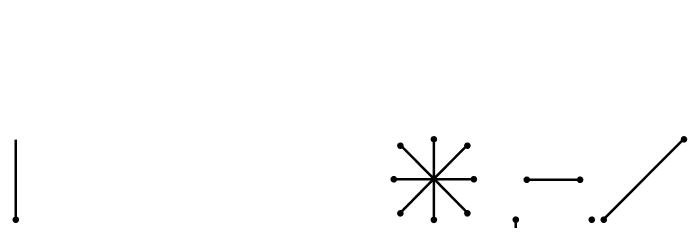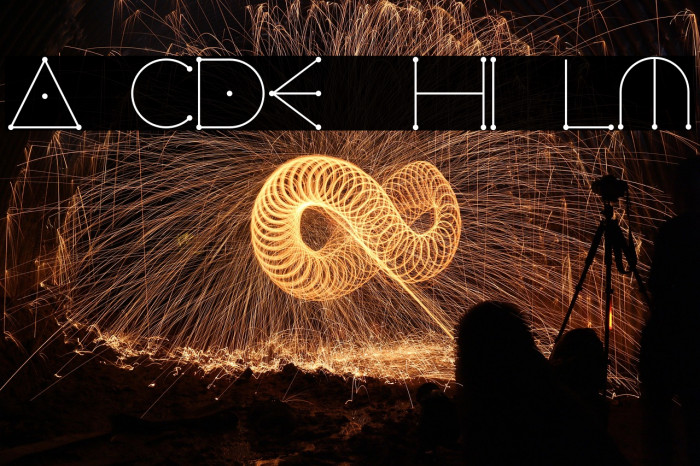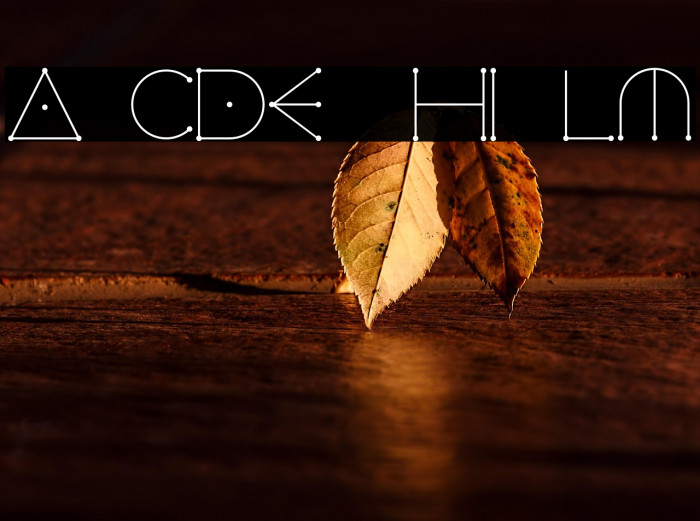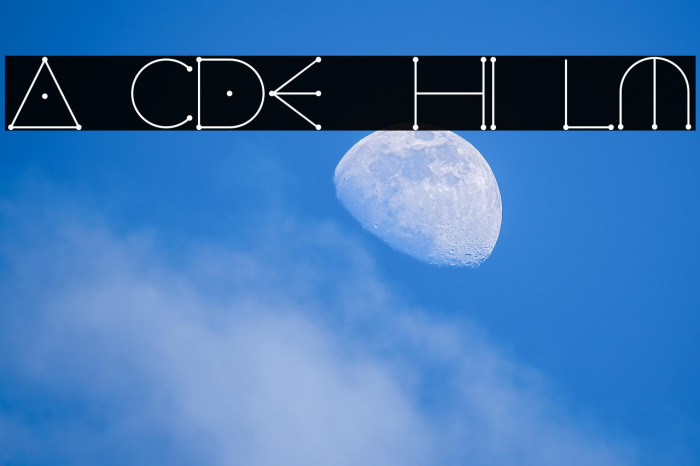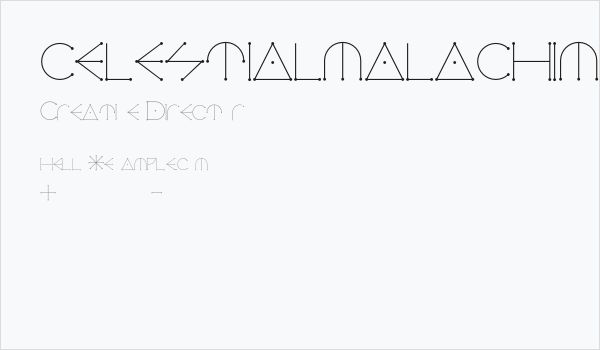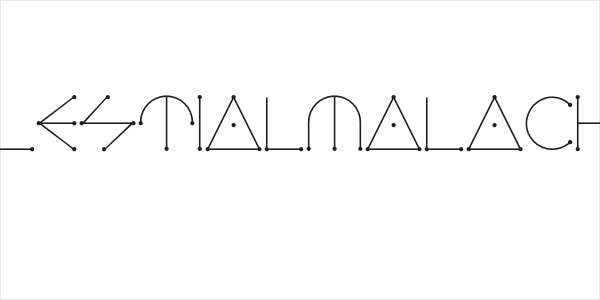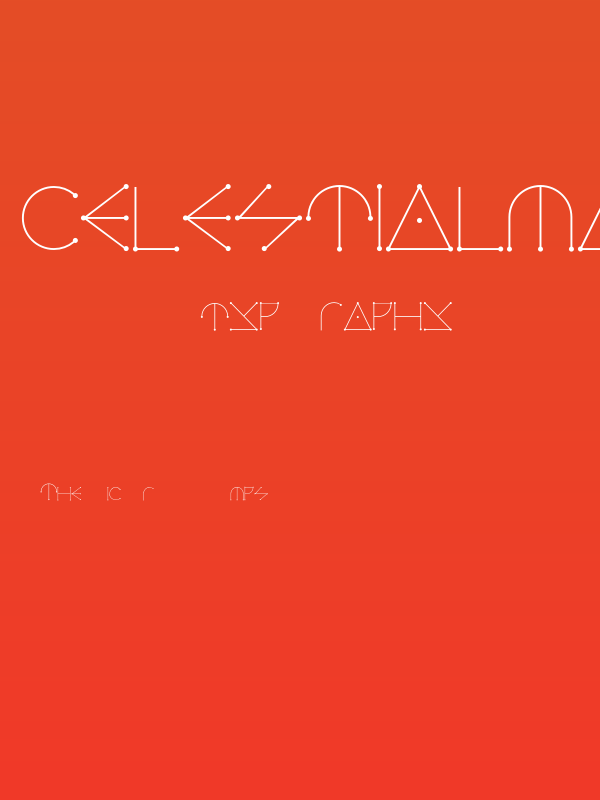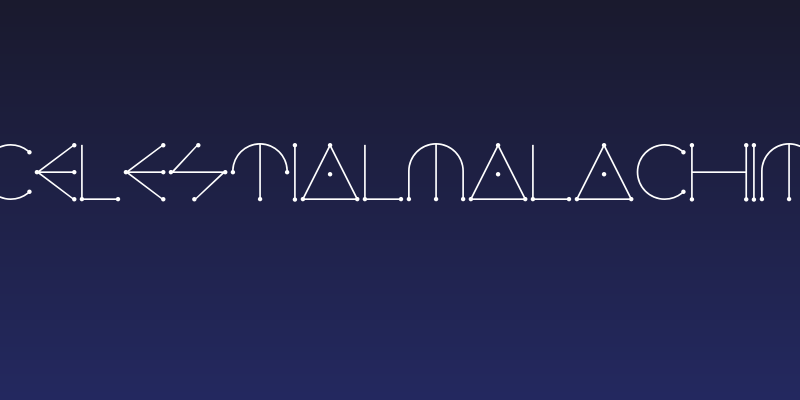
CELESTIALMALACHIM Font
CELESTIALMALACHIM Description
This font features a unique and abstract design, characterized by geometric shapes and lines that form each letter. The style is reminiscent of celestial or mystical symbols, with a minimalist approach that emphasizes simplicity and elegance. Each character is constructed using a combination of straight lines and curves, often incorporating dots or small circles as decorative elements. The overall appearance is modern and artistic, making it suitable for creative and unconventional projects. The font's distinctiveness lies in its ability to convey a sense of mystery and intrigue, ideal for designs that aim to capture attention and evoke curiosity.
CELESTIAL MALACHIM
| Use Case | Logos, Headlines, Artistic designs |
| Proposed Projects | Ideal for creative projects such as album covers, posters, or branding for mystical or futuristic themes. |